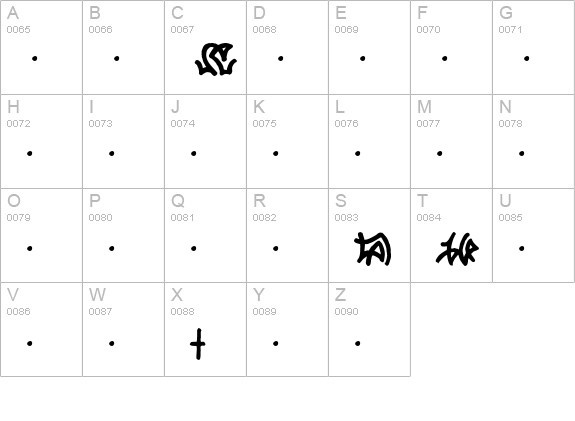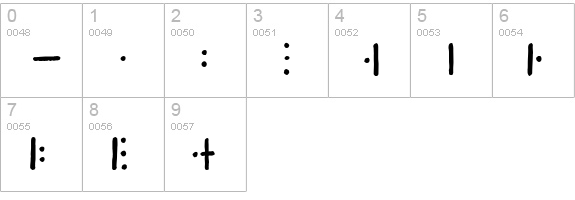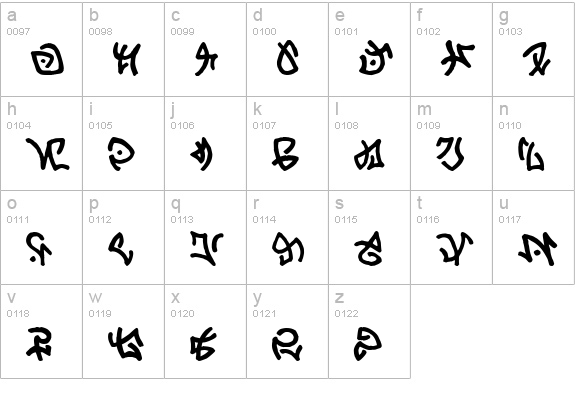
Atlantean Font Details
The Atlantean font is a captivating typeface that exudes an air of mystery and ancient wisdom. Inspired by the legendary lost city of Atlantis, this font features intricate, flowing lines and a unique, otherworldly charm that will transport your designs to a realm of fantasy and adventure. The Atlantean font is perfect for adding a touch of magic to your projects, whether you're working on a fantasy novel, a mystical poster, or a whimsical logo. Best of all, the Atlantean font is completely free to download at FontsMarket.com. Don't miss this opportunity to bring a touch of the mystical and mysterious into your designs with the Atlantean font. Download it today and let your creativity soar to new heights!